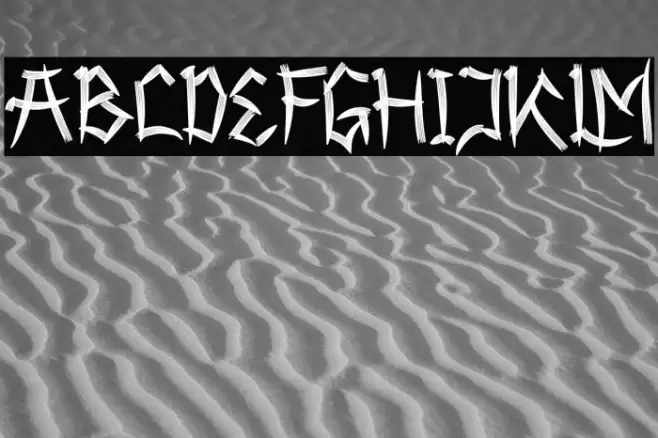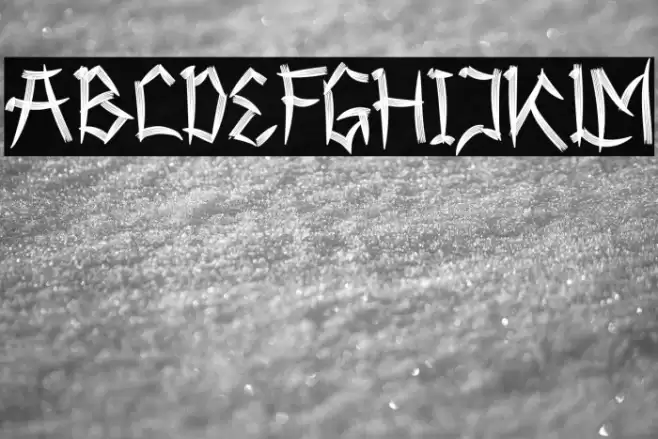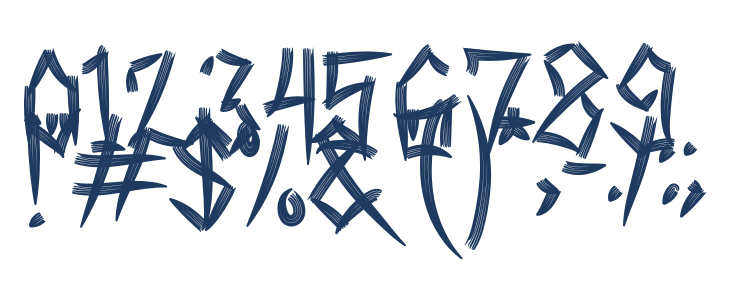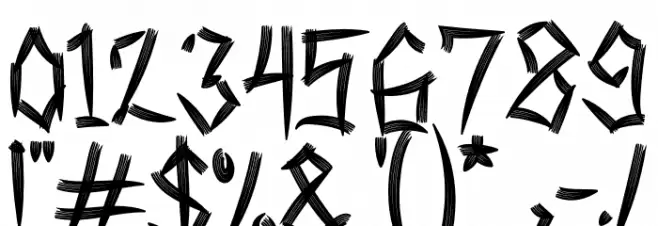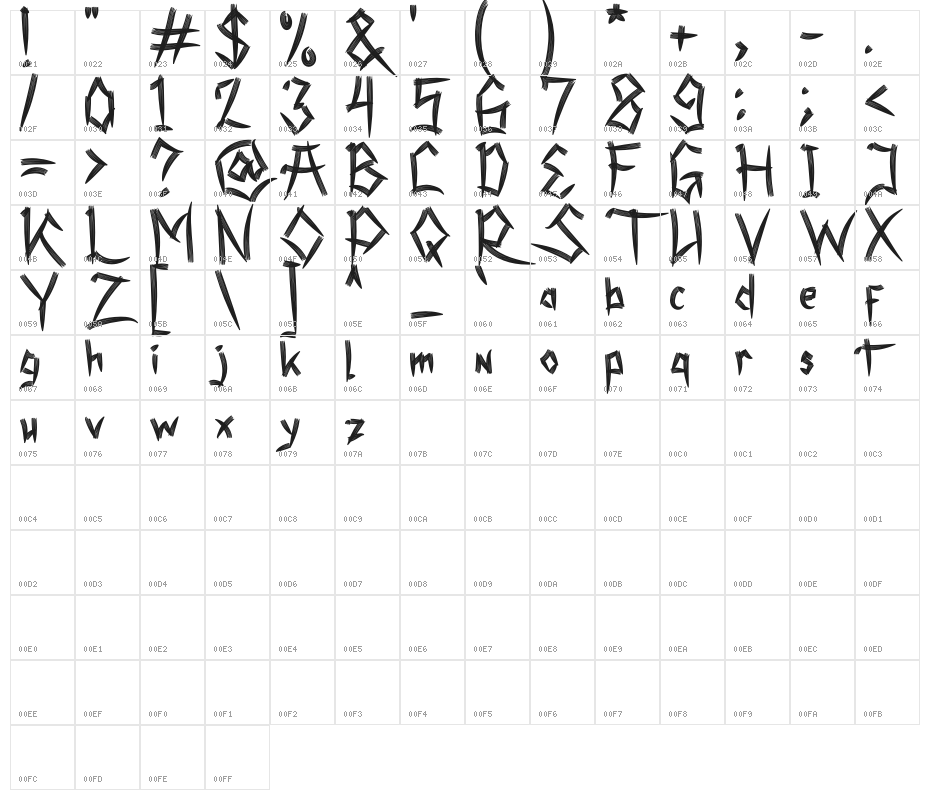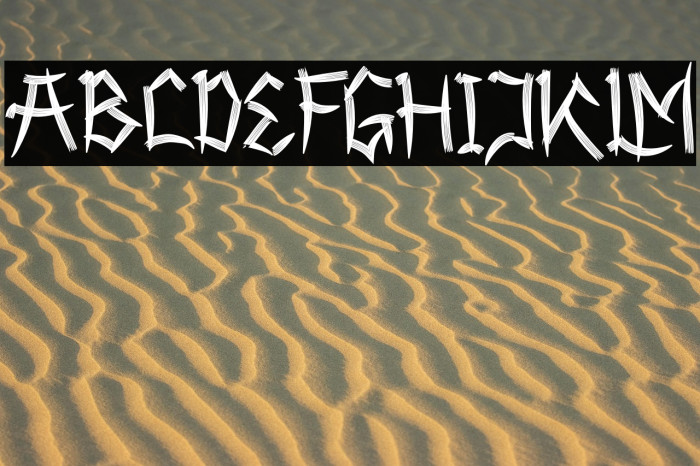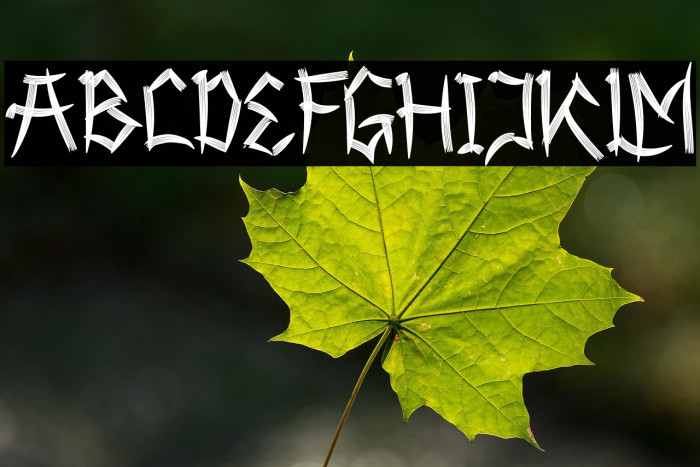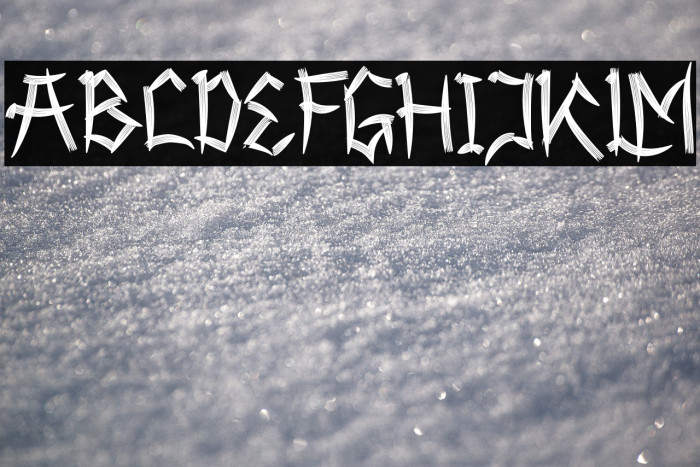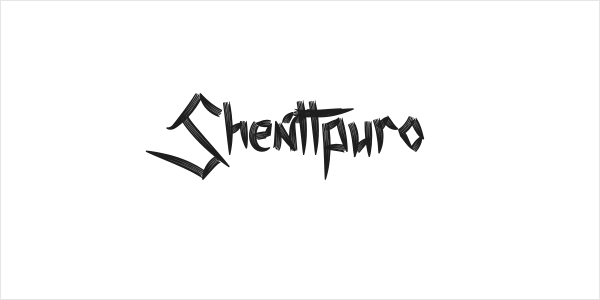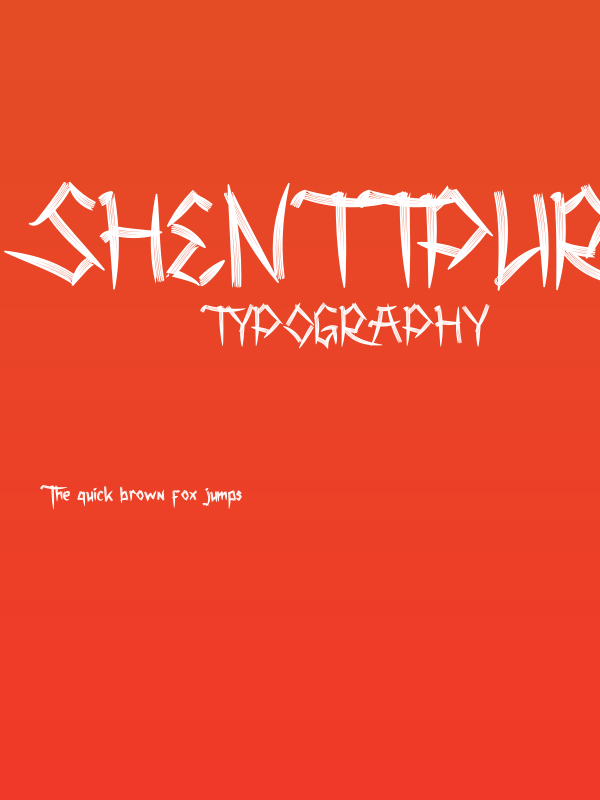
Shenttpuro Font
Shenttpuro Description
This font features a bold and dynamic brushstroke style, characterized by sharp angles and a hand-drawn appearance. The letters have a unique, edgy look with varying thickness, giving them a sense of movement and energy. The uppercase and lowercase letters maintain a consistent style, while the numbers and special characters complement the overall aesthetic. The font's design is reminiscent of graffiti or street art, making it ideal for projects that require a bold and artistic touch.
A bold, brushstroke-style font with an edgy, hand-drawn appearance from Uncategorized fonts.
- Font: Shenttpuro
- Proposed Projects: Perfect for street art-inspired designs, posters, album covers, and branding that requires a bold, artistic flair.
- Overall Style: Modern, Artistic